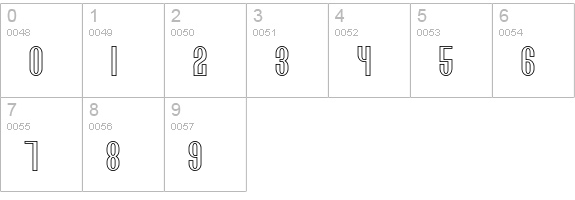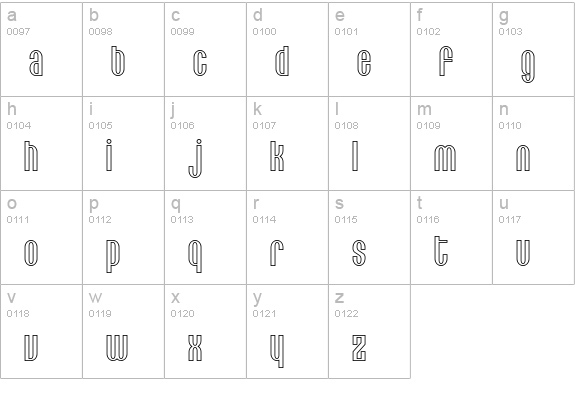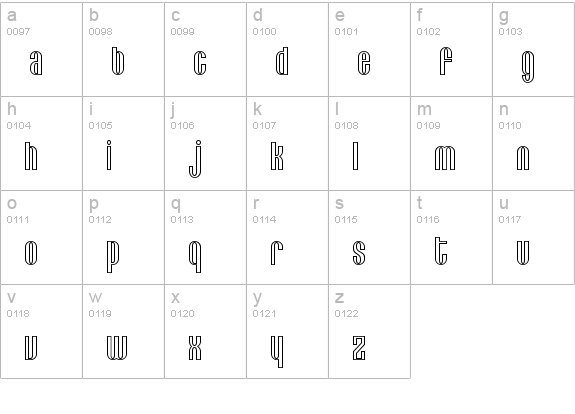
Lithia-Outline Font Details
Lithia-Outline font is a modern and stylish typeface perfect for a variety of design projects. Its sleek and elegant outlines add a sophisticated touch to any design, making it ideal for logos, branding, packaging, and more. This font exudes a sense of creativity and professionalism, making it a versatile choice for both personal and commercial use. The best part? Lithia-Outline font is completely free to download at FontsMarket.com. Simply visit the website and start using this stunning font in your projects today. Whether you're a graphic designer, artist, or hobbyist, Lithia-Outline font is sure to elevate your designs and make them stand out from the crowd. Don't miss out on this amazing opportunity to enhance your creative work with a high-quality font that won't cost you a penny. Download Lithia-Outline font now and unleash your creativity!